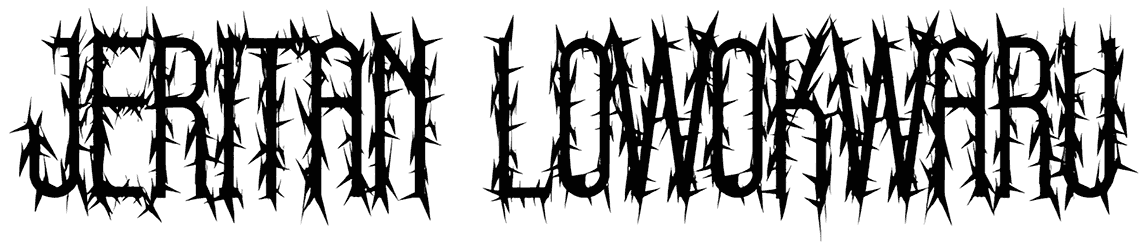
Jahfont Font
When you use Jahfont to implement your projects, even the word playful is not enough to describe its general state. This cactus font, with its pointed structures, is a real trick to attract the attention of the audience and give them a smile.
Using this font on greeting cards, website banners, t-shirts, and even children’s products can show off your imagination and create a great effect on summer backgrounds without the need for small letters.